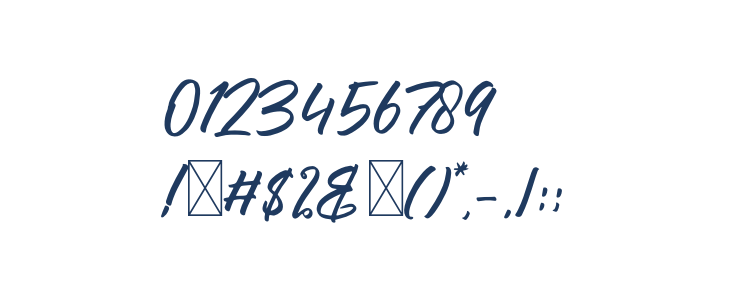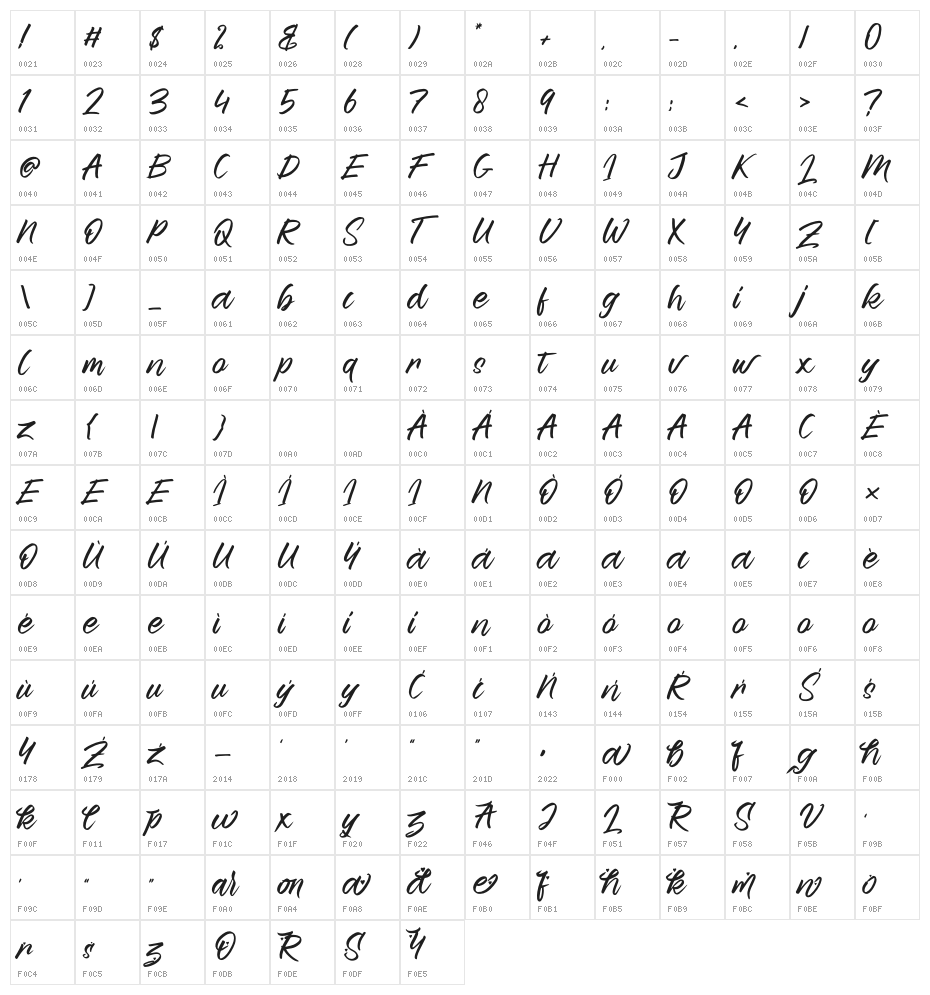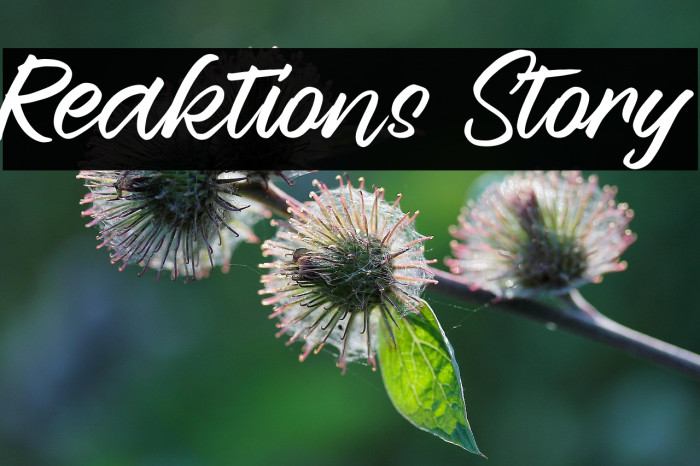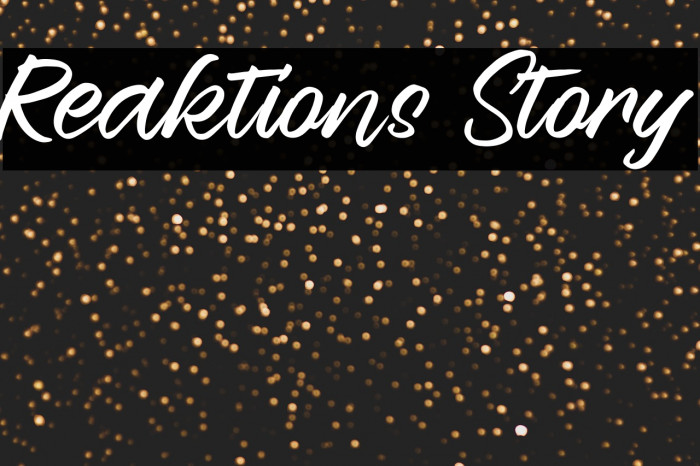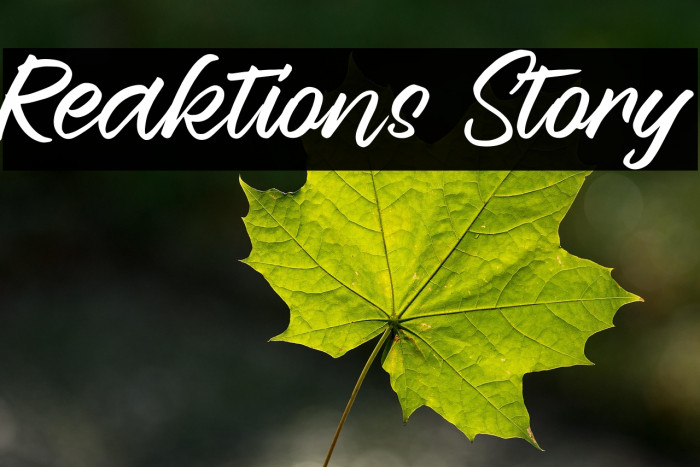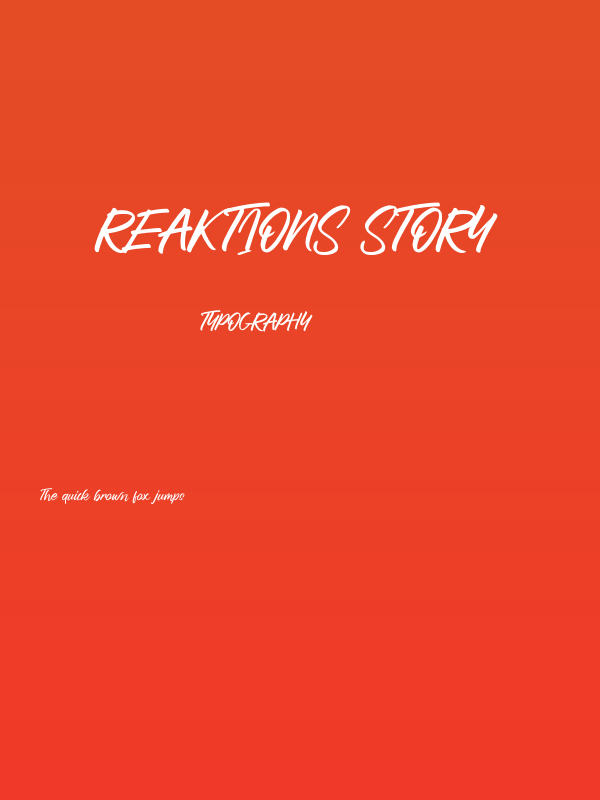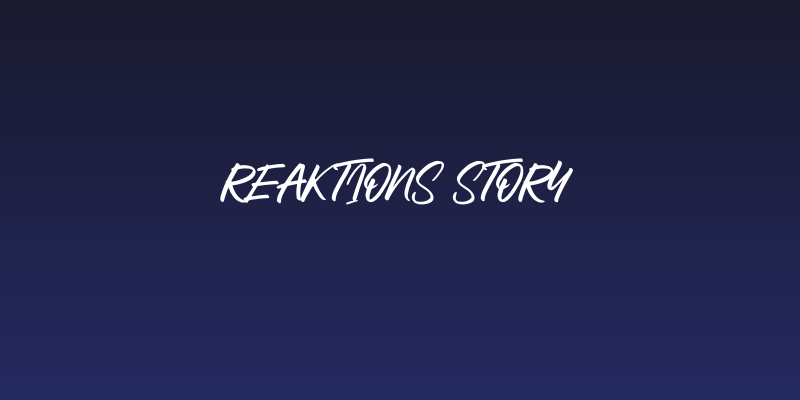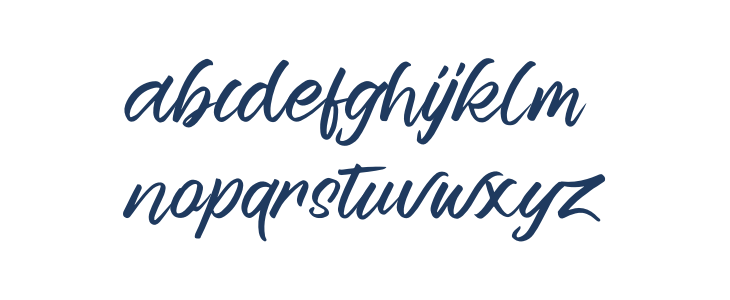
Reaktions Story Font
Reaktions Story Description
This font features a dynamic and expressive script style, characterized by its fluid, handwritten appearance. The letters are connected with smooth, flowing strokes that give it a sense of movement and elegance. The uppercase letters are bold and slightly slanted, while the lowercase letters maintain a consistent flow with a more delicate touch. The numerals and special characters complement the overall style, maintaining the same fluidity and expressiveness. This font is ideal for projects that require a personal, artistic touch, such as invitations, greeting cards, or branding materials.
| Proposed Projects | Ideal for invitations, greeting cards, branding materials, and artistic projects. |